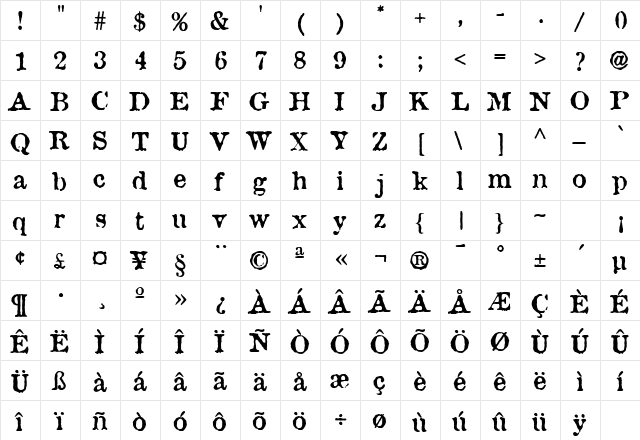
Antique Type Regular
Design Context for Antique Type Typeface
Antique Type has the warm character of retro typography — evoking diners, record sleeves, and the golden age of print advertising.
Font Pairing: Combine Antique Type with a simple slab or neutral sans — period-accurate companions reinforce the vintage feel without competing for attention.
Pro Tip: Use Antique Type for headlines and pull quotes rather than body copy — its personality is best appreciated in short, focused bursts.